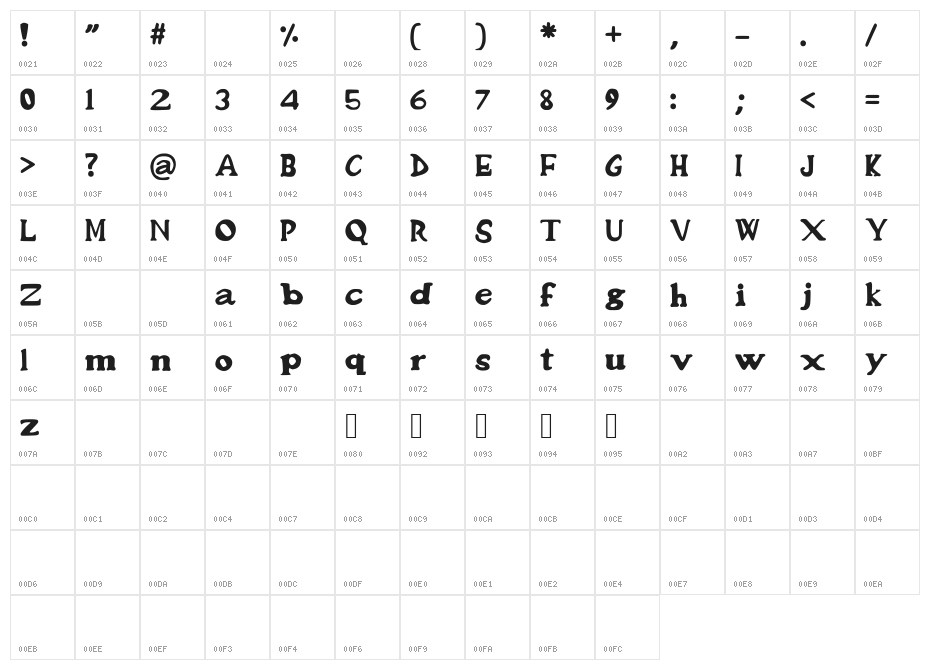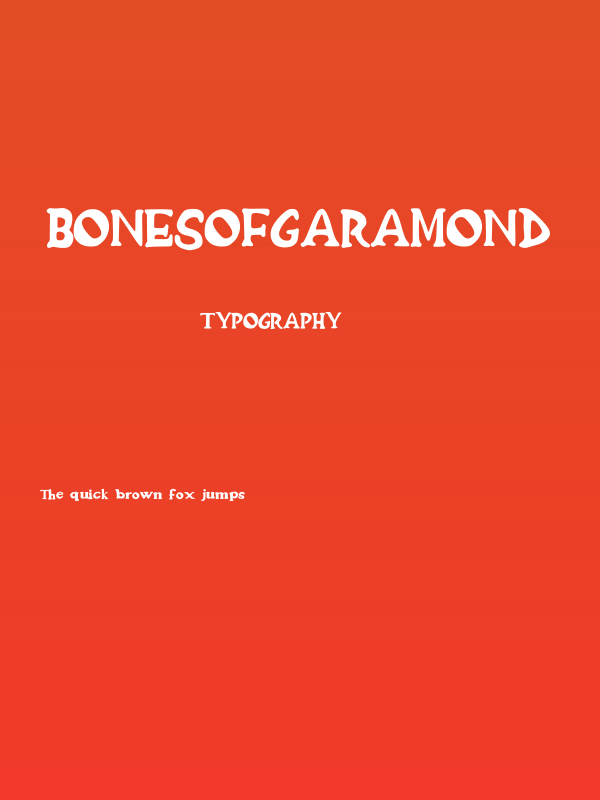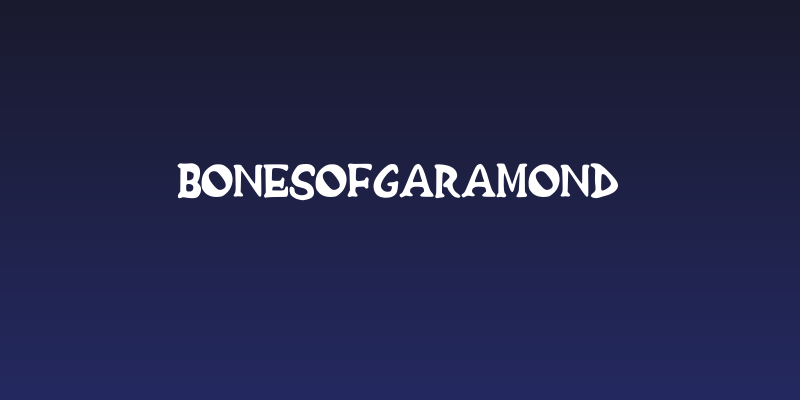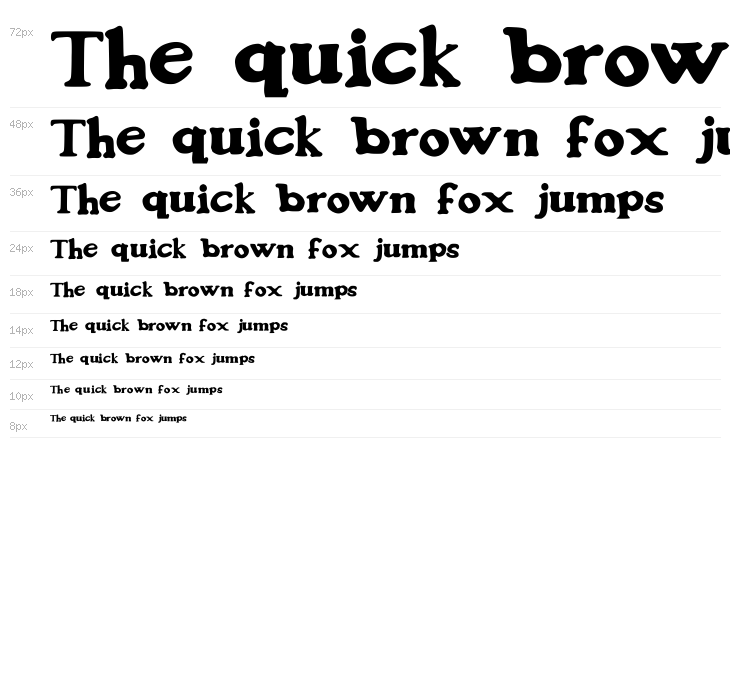
BonesOfGaramond Font
BonesOfGaramond Description
This font features a playful and quirky design with a hand-drawn aesthetic. The characters are bold and have a slightly irregular shape, giving them a whimsical and organic feel. The strokes are thick and rounded, with a moderate contrast between thick and thin lines. The overall appearance is reminiscent of a cartoon or comic style, making it ideal for projects that require a fun and informal touch. The uppercase and lowercase letters maintain a consistent style, while the numerals and special characters complement the overall design. This font is suitable for creative projects that aim to capture attention with a unique and lively typeface.
Overall StyleWhimsical, Playful
Use CaseHeadlines, Posters, Branding
Proposed ProjectsIdeal for children's books, comic strips, playful branding, and creative posters.